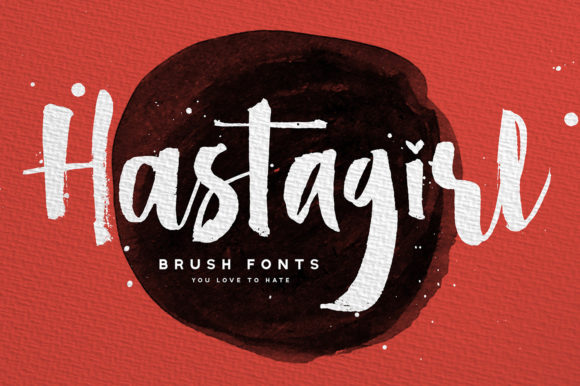
Embark on a typographic adventure with Hastagirl Font, a captivating and graceful script font family that exudes an undeniable cinematic charm. With its flowing strokes and elegant curves, Hastagirl effortlessly transports you to the silver screen, inviting you to create breathtaking movie credits that leave a lasting impression.
Indulge in the exquisite beauty of Hastagirl's meticulously crafted characters, each meticulously designed to evoke a sense of wonder and intrigue. Seamlessly blend Hastagirl's timeless appeal with modern aesthetics, crafting logos that radiate sophistication and personality. Unleash your creativity and design quotes that resonate with depth and emotion, capturing the essence of your message with Hastagirl's enchanting touch.
Hastagirl's versatility extends beyond the realm of digital design. Its captivating presence graces physical spaces, transforming storefronts, billboards, and product packaging into captivating works of art. Its ability to effortlessly blend with various design styles makes Hastagirl the ultimate choice for creating cohesive and impactful branding strategies.
Step into the spotlight and embrace the allure of Hastagirl Font. Allow its enchanting strokes to captivate your audience, leaving them spellbound by your designs. Experience the magic of Hastagirl and elevate your creative projects to new heights of elegance and sophistication.